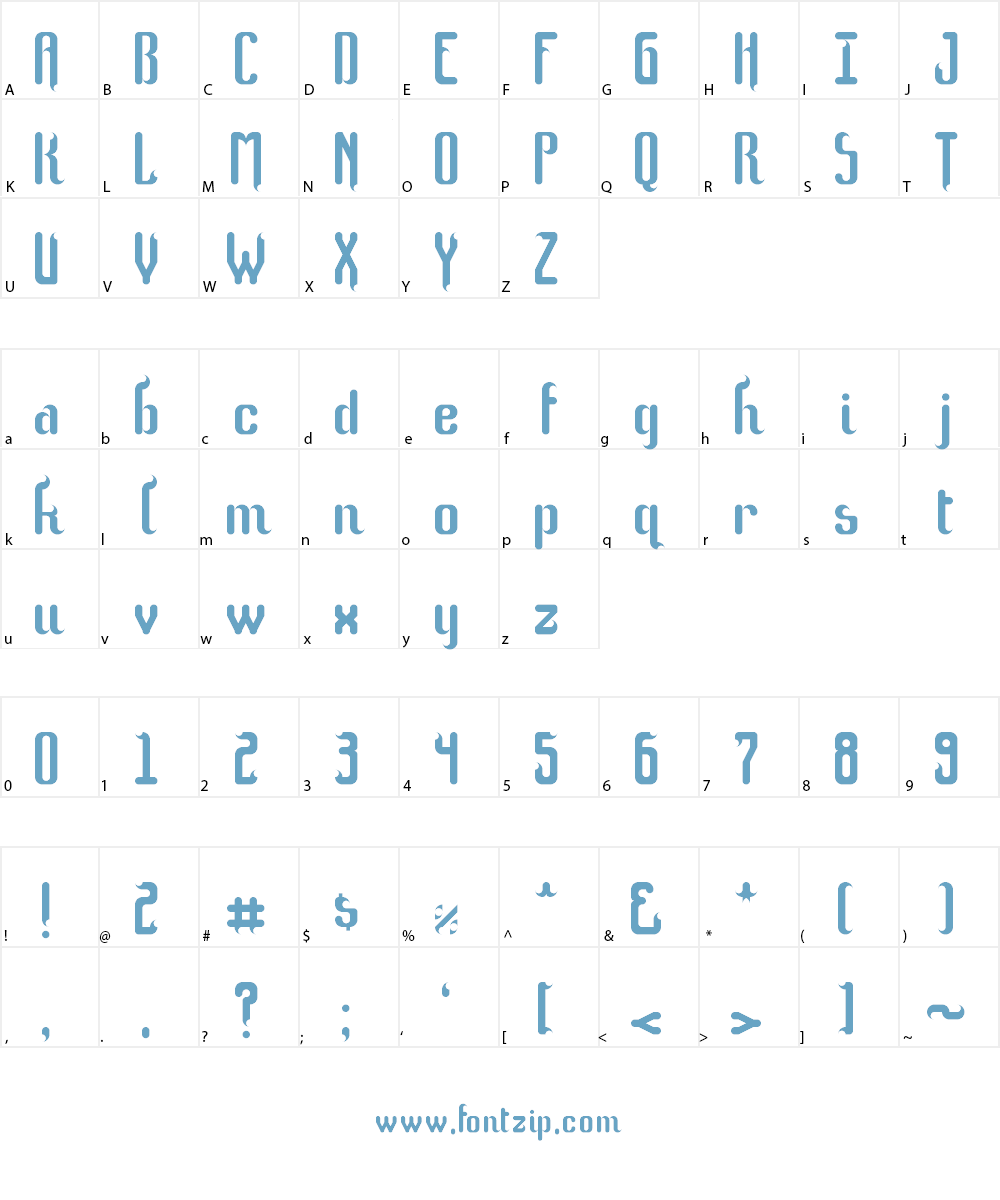
It is a new trial with new form. This font is quite unique and yet beautiful.
Combine this font with gel effect and you will find such a pretty image ...